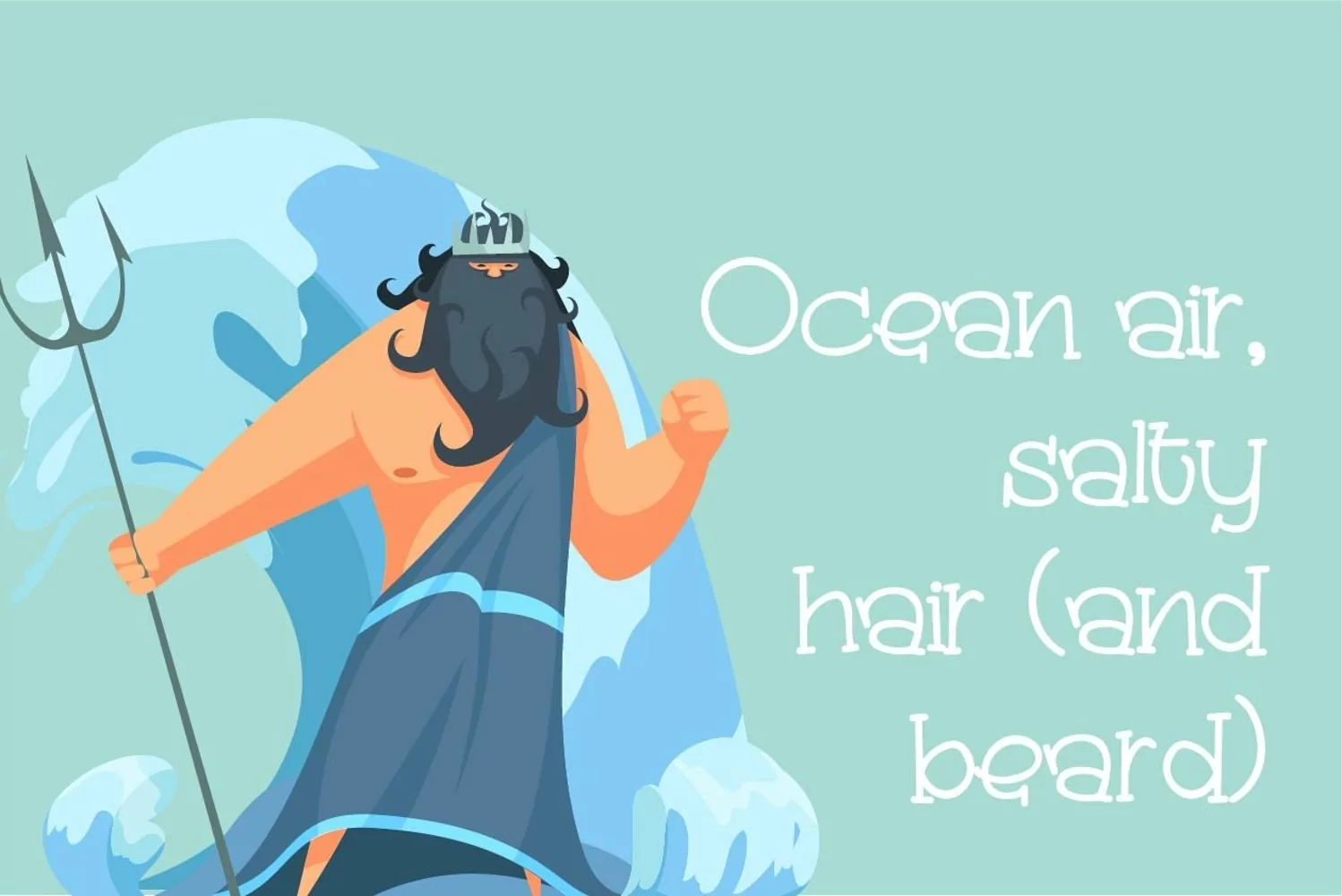
Alexandros is a casual handwritten font perfect for any design you can think of. Add it with confidence to your creative projects, and notice how they capture everyone’s attention! Includes regular and bold.